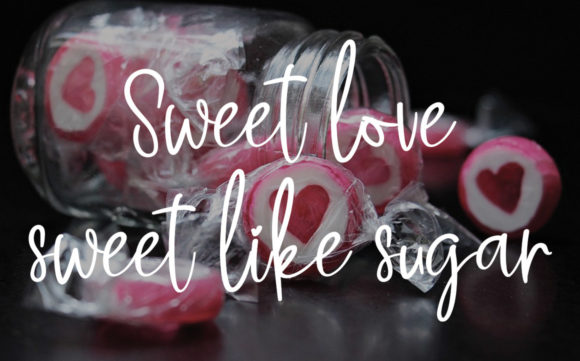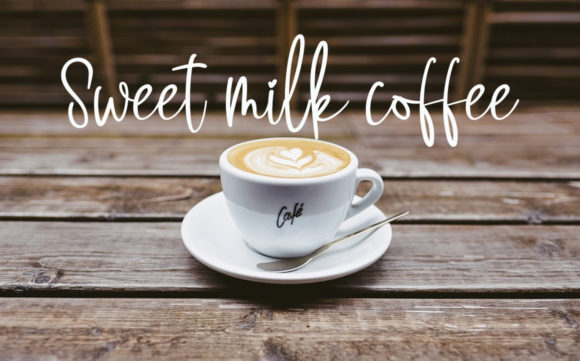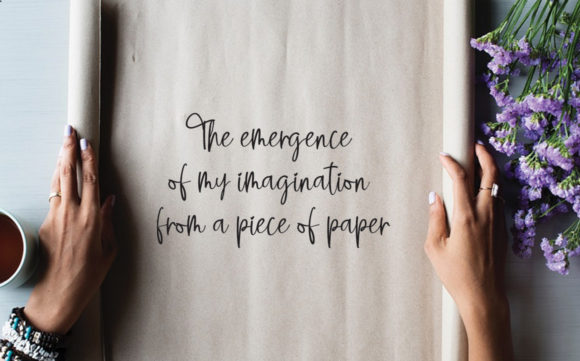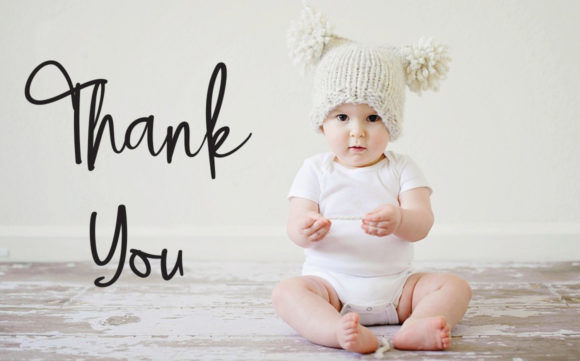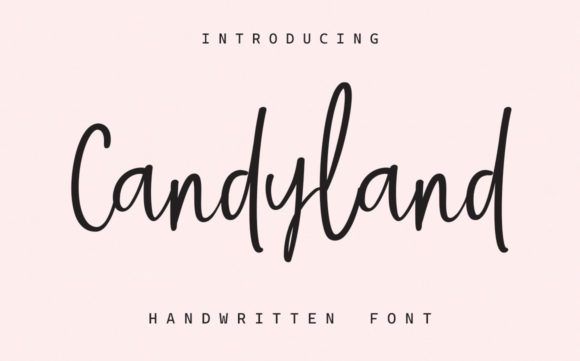
Candyland Font: The Sweetest Addition to Your Design Projects
Are you looking for a font that adds a touch of whimsy and playfulness to your design projects? Look no further than the Candyland Font! This beautiful and flowing handwritten font is perfect for a variety of projects, from wall displays and wedding invitations to social media posts and product packaging.
What is Candyland Font?
Candyland Font is a unique and eye-catching font that is sure to make your designs stand out. With its flowing and cursive script, it’s perfect for adding a touch of elegance and sophistication to any project. The font is highly versatile and can be used for a wide range of applications, from formal events like weddings and parties to more casual projects like social media posts and product designs.
Features of Candyland Font
- Beautiful and flowing handwritten script: The Candyland Font features a beautiful and flowing handwritten script that is sure to add a touch of whimsy and playfulness to any project.
- Highly versatile: The font is highly versatile and can be used for a wide range of applications, from formal events to more casual projects.
- Perfect for typography: The Candyland Font is perfect for projects that require impressive typography, such as wall displays, wedding invitations, and social media posts.
- Easily readable: The font is easily readable, making it perfect for projects that require a clear and concise message.
Uses of Candyland Font
The Candyland Font is perfect for a variety of projects, including:
- Wall displays: The font is perfect for creating eye-catching wall displays that are sure to grab attention.
- Wedding invitations: The Candyland Font is a popular choice for wedding invitations, adding a touch of elegance and sophistication to any wedding stationery.
- Social media posts: The font is perfect for creating eye-catching social media posts that are sure to grab attention.
- Logos and advertisements: The Candyland Font is perfect for creating logos and advertisements that require impressive typography.
- Product packaging and designs: The font is perfect for adding a touch of whimsy and playfulness to product packaging and designs.
- Labels and photography: The Candyland Font is perfect for creating eye-catching labels and watermarks for photography projects.
- Invitations and stationery: The font is perfect for creating beautiful and elegant invitations and stationery.
Why Choose Candyland Font?
There are many reasons why you should choose the Candyland Font for your design projects. Here are just a few:
- Unique and eye-catching: The Candyland Font is a unique and eye-catching font that is sure to make your designs stand out.
- Highly versatile: The font is highly versatile and can be used for a wide range of applications.
- Easily readable: The font is easily readable, making it perfect for projects that require a clear and concise message.
- Perfect for typography: The Candyland Font is perfect for projects that require impressive typography.
Tips for Using Candyland Font
Here are a few tips for using the Candyland Font in your design projects:
- Use it sparingly: While the Candyland Font is a beautiful font, it’s best to use it sparingly to avoid overwhelming the design.
- Pair it with other fonts: The Candyland Font pairs well with other fonts, so don’t be afraid to experiment with different font combinations.
- Experiment with colors: The Candyland Font looks great in a variety of colors, so don’t be afraid to experiment with different color schemes.
The Candyland Font is a beautiful and versatile font that is perfect for a wide range of design projects. With its flowing and cursive script, it’s sure to add a touch of whimsy and playfulness to any project. Whether you’re creating wall displays, wedding invitations, social media posts, or product packaging, the Candyland Font is a great choice. So why not give it a try and see how it can elevate your designs?